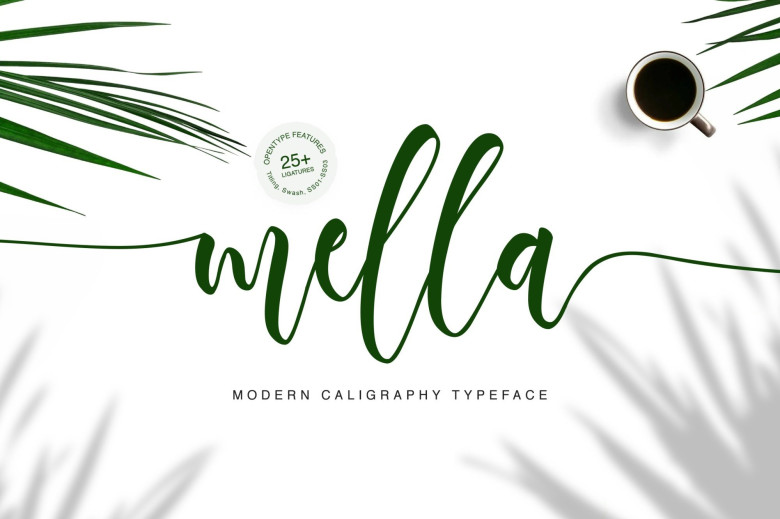
Mella Modern Calligraphy Font
Introducing the elegant new Mella Modern Calligraphy Font! a versatile, luxury and authentic font with dynamic hand-drawn stroke. This natural stroke makes this font look so sexy and easily paired with other fonts.